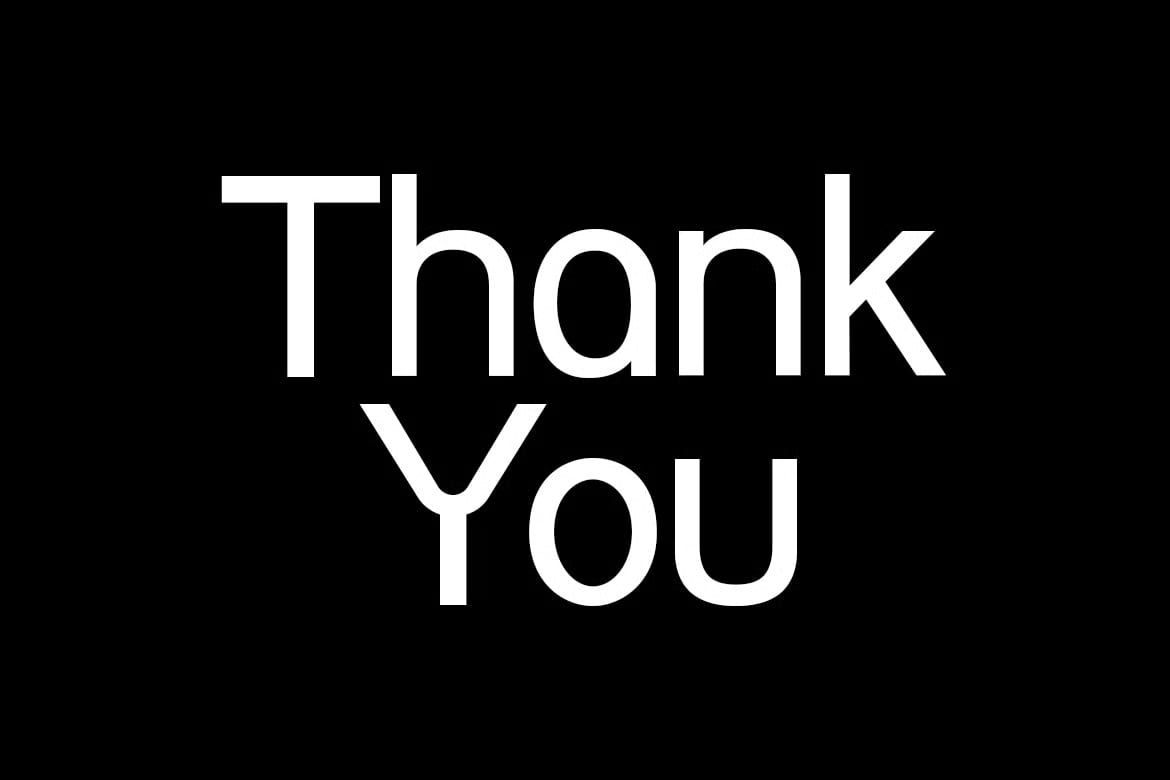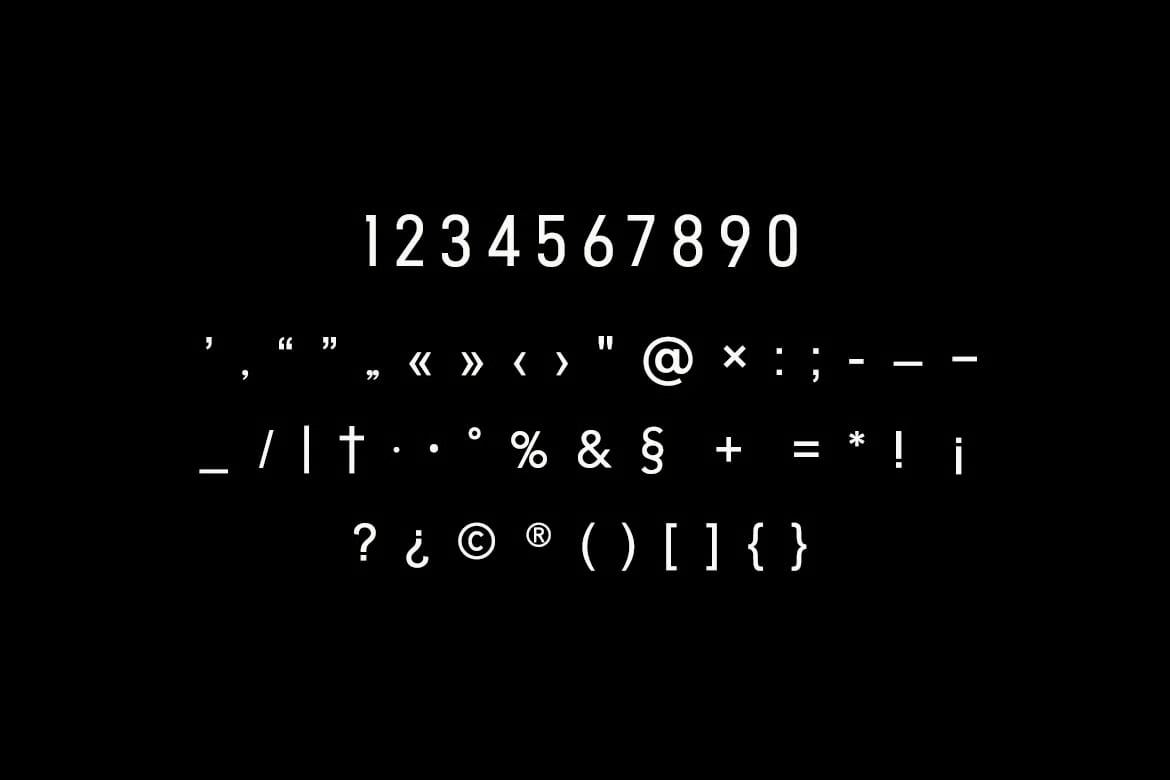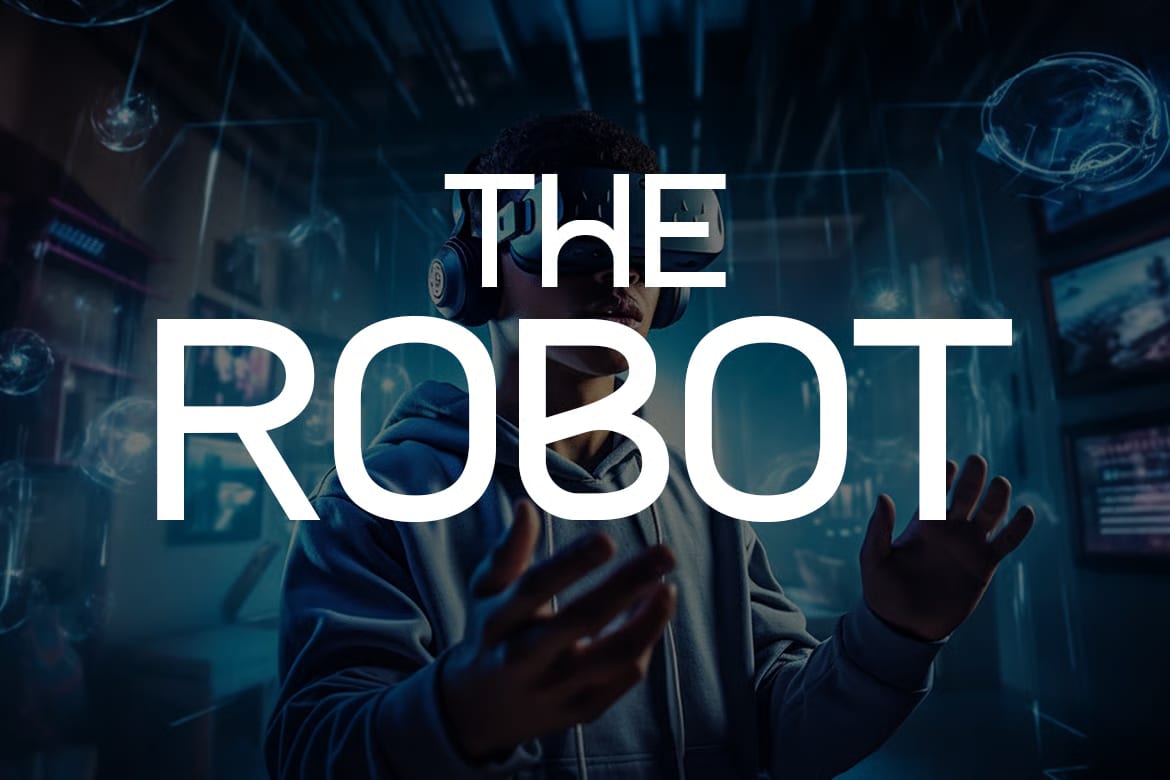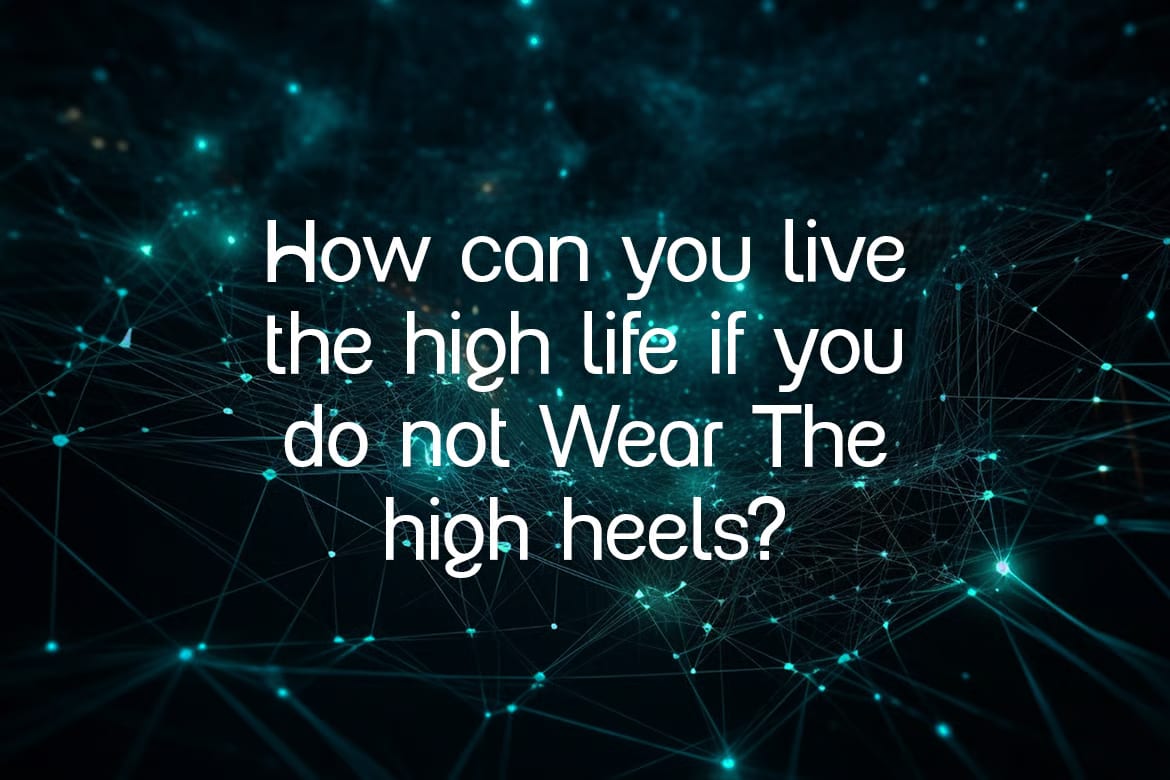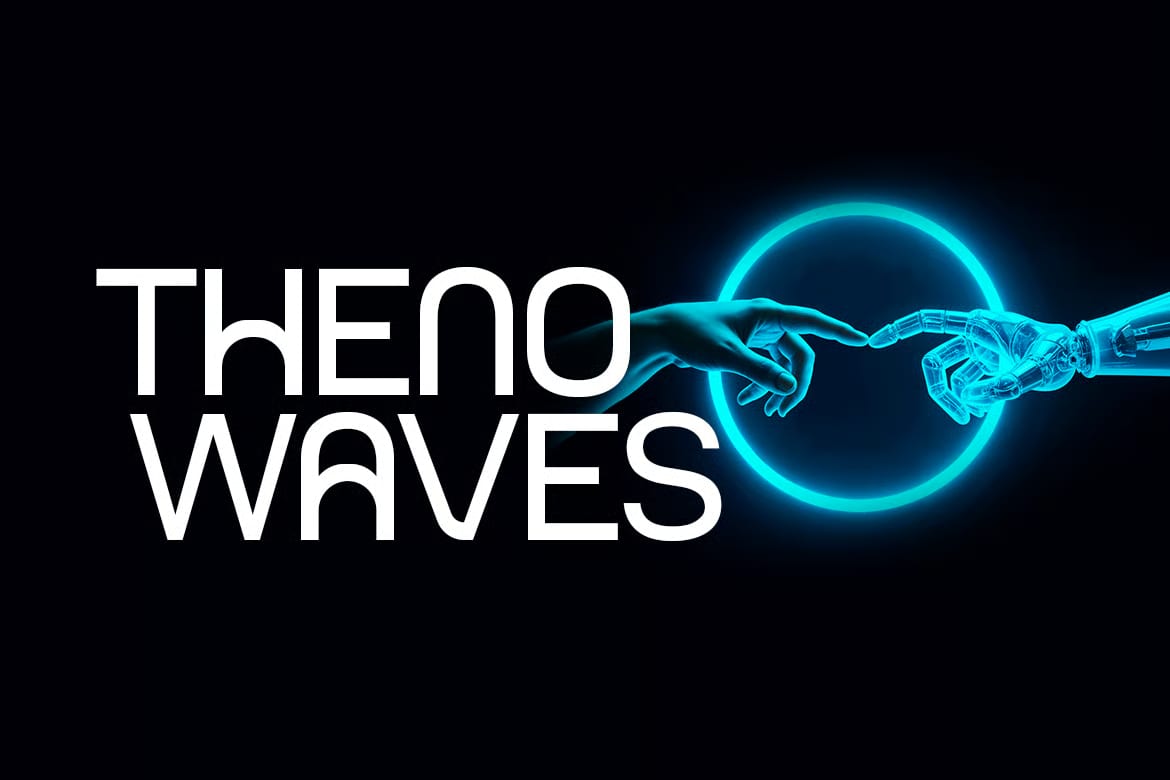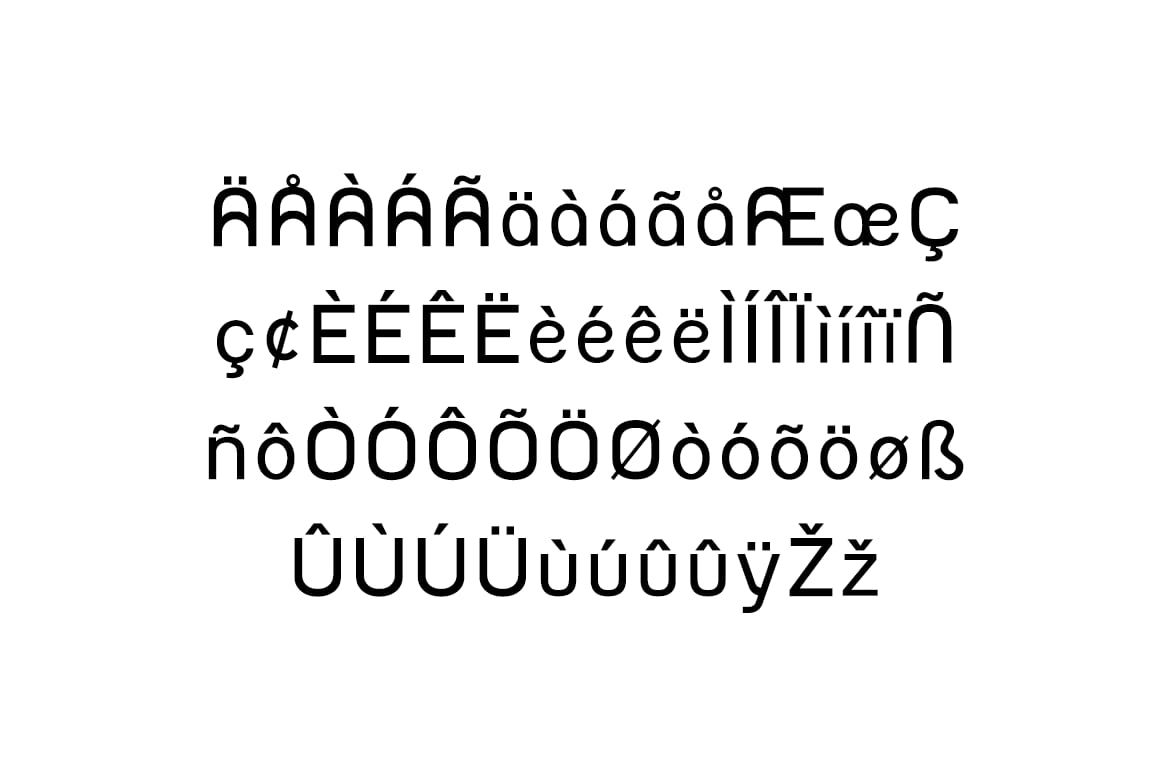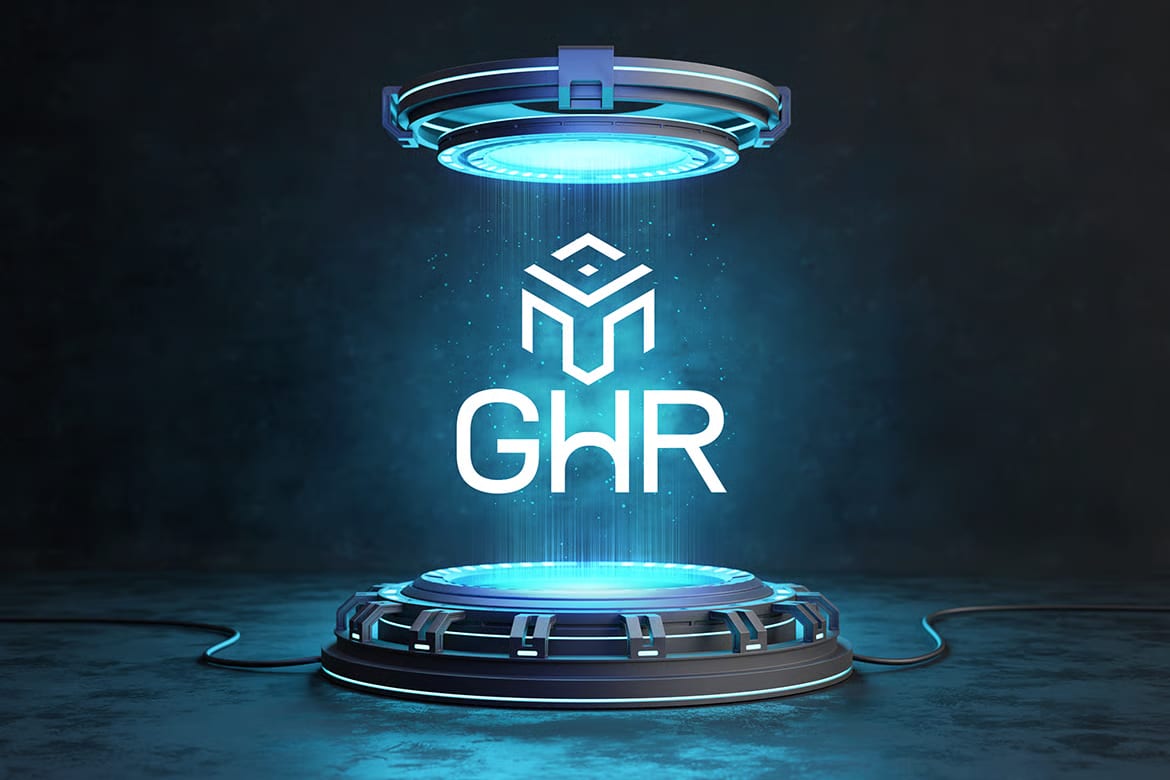
Pollygram is a modern sans serif font with a clean and stylish look. It feels elegant, classy, and contemporary, which makes it a nice fit for many kinds of design work.
You can use it for signatures, stationery, logos, wedding designs, typography quotes, magazine or book covers, website headers, clothing, branding, packaging, and similar projects. It also works well for fashion branding and editorial layouts, with a balance that can feel both masculine and feminine.